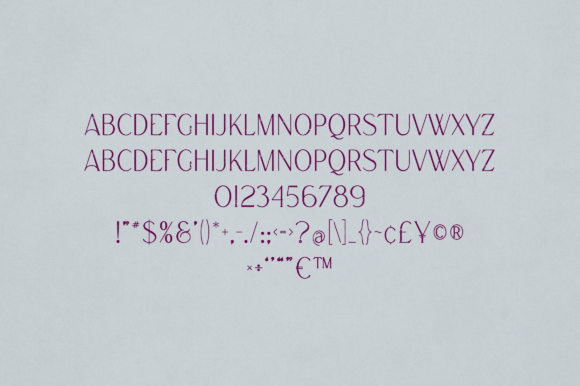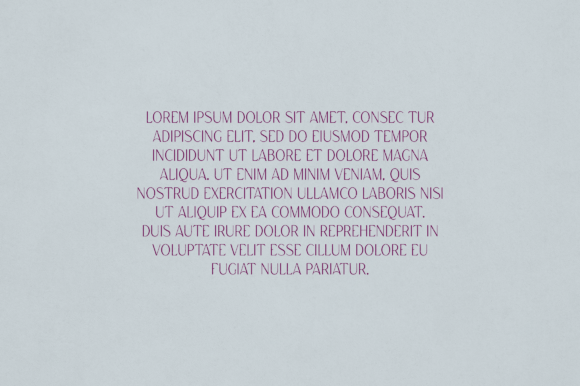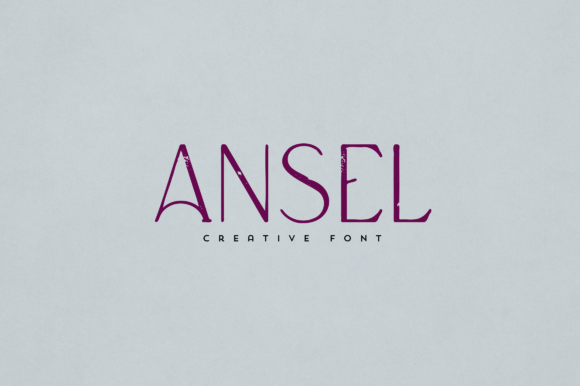
Introduction to Ansel Font
Ansel is an elegant and versatile font that will make your typography truly unique.
It will enchant every logo, branding, headline, or plain text This font is perfect for branding projects, home-ware designs, product packaging, magazine headers – or simply as a stylish text overlay to any background image.
Key Features of Ansel Font
Why Choose Ansel Font?